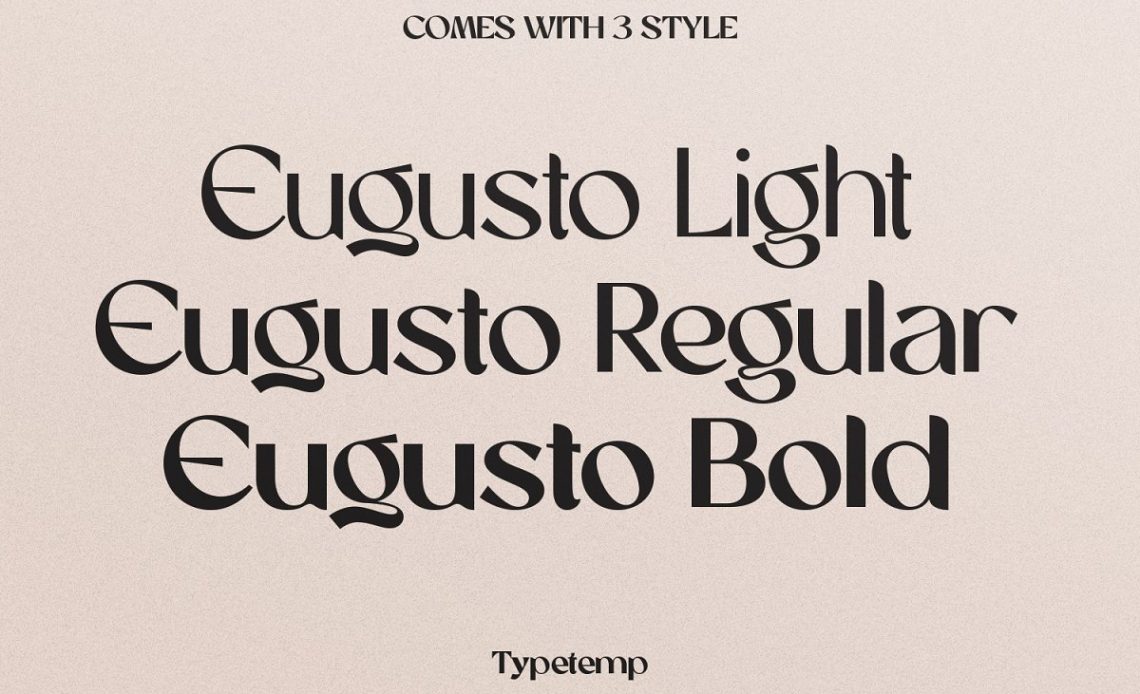
Introducing Eugusto - the Display Typeface that will take your designs to the next level! Created by the talented Egi Ahmad Mufid, this stylish sans serif font is guaranteed to catch the eye and leave a lasting impression.
With its modern look and versatile design, Eugusto is perfect for a wide range of creative projects. Whether you're designing logos, quotes, blog posts, or even wedding invitations, this font will bring a touch of elegance and sophistication to your work.
What sets Eugusto apart from other fonts is its extensive range of alternatives and ligatures. These unique letterforms allow you to experiment and create truly stunning designs that stand out from the crowd. Say goodbye to boring and predictable typography - with Eugusto, the possibilities are endless.
Imagine the impact Eugusto will have on your branding projects, magazine imagery, and social media posts. It's the perfect addition to your font collection, allowing you to elevate your designs and captivate your audience.
But don't just take our word for it - try Eugusto for yourself and experience the magic firsthand. We're confident that you'll fall in love with its elegant curves and attention to detail.